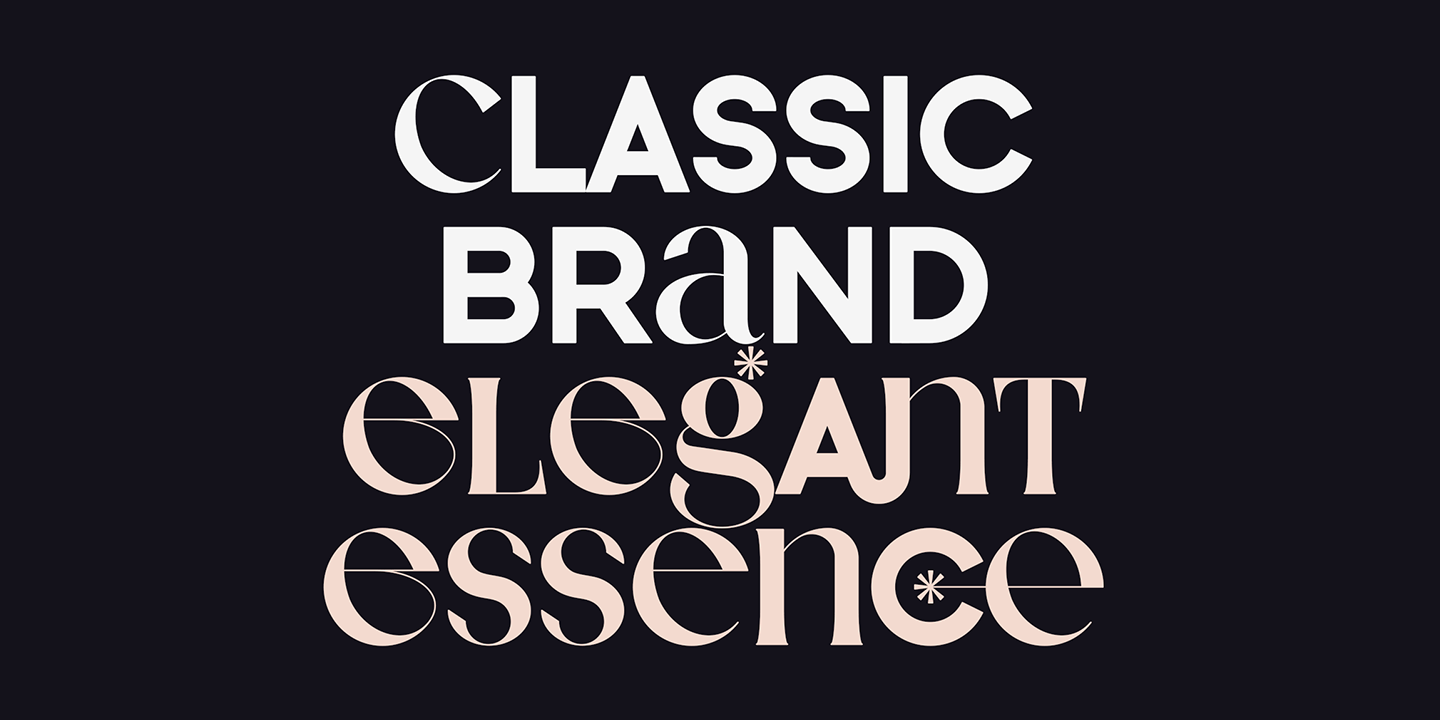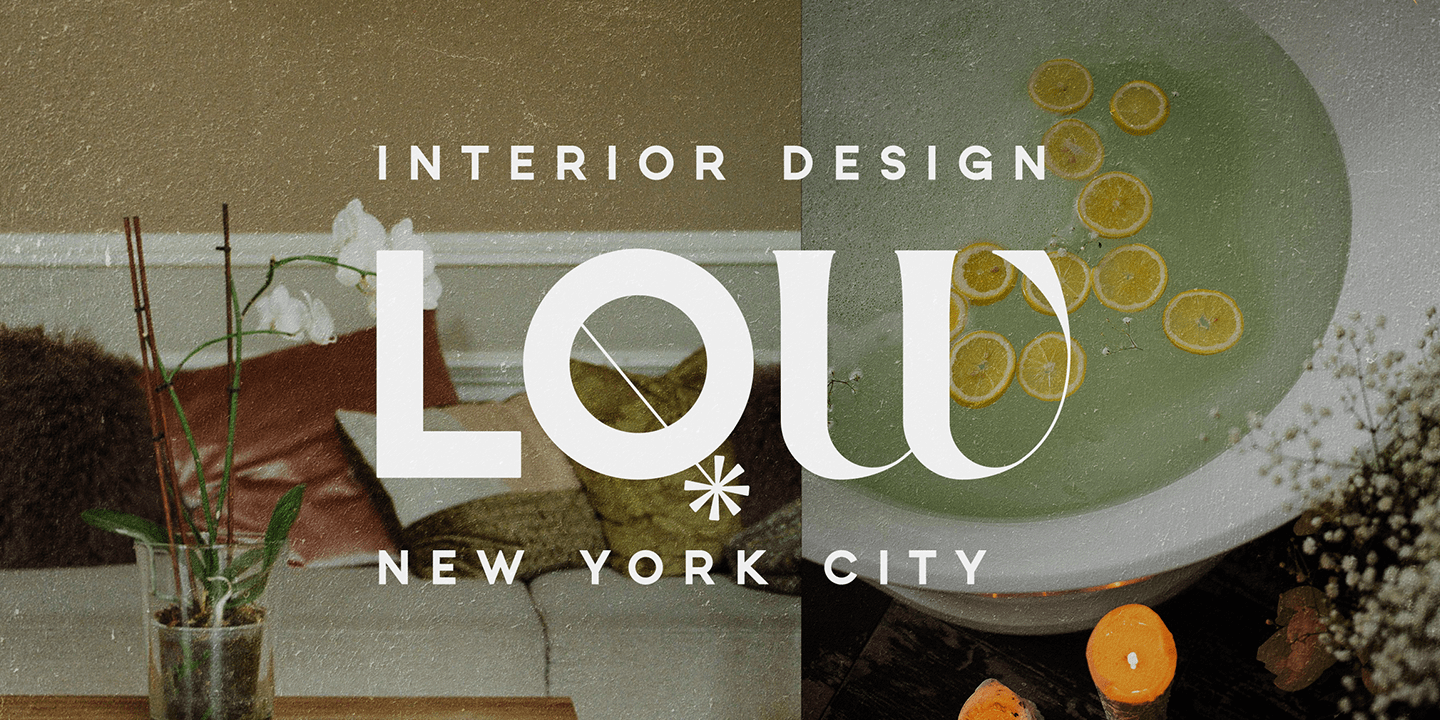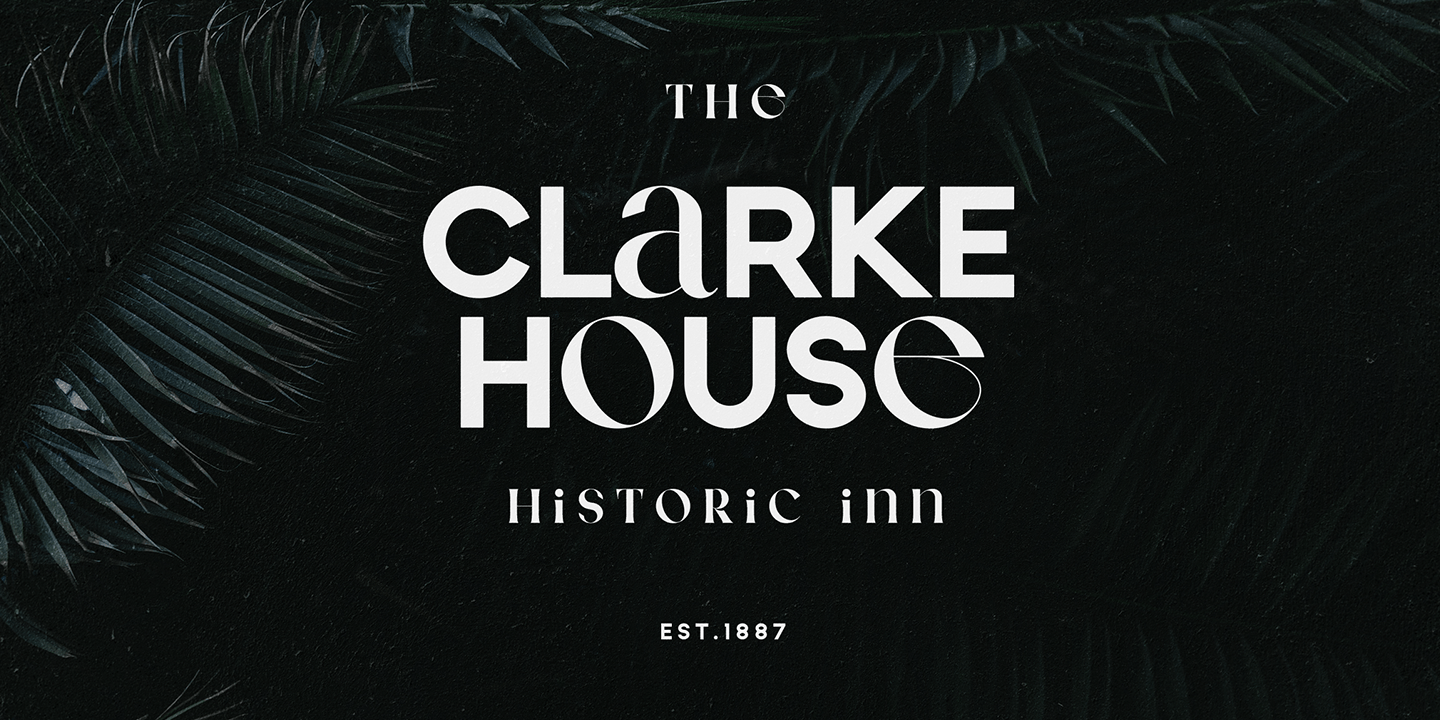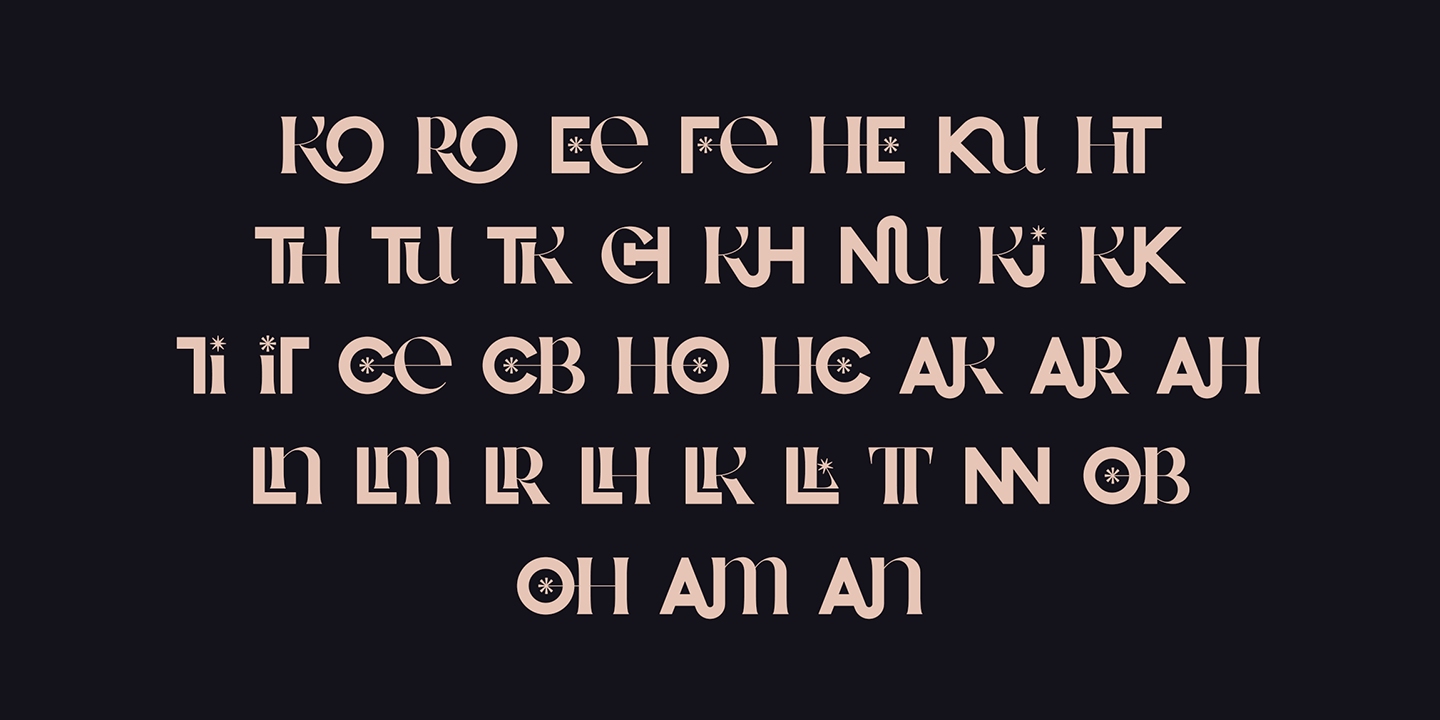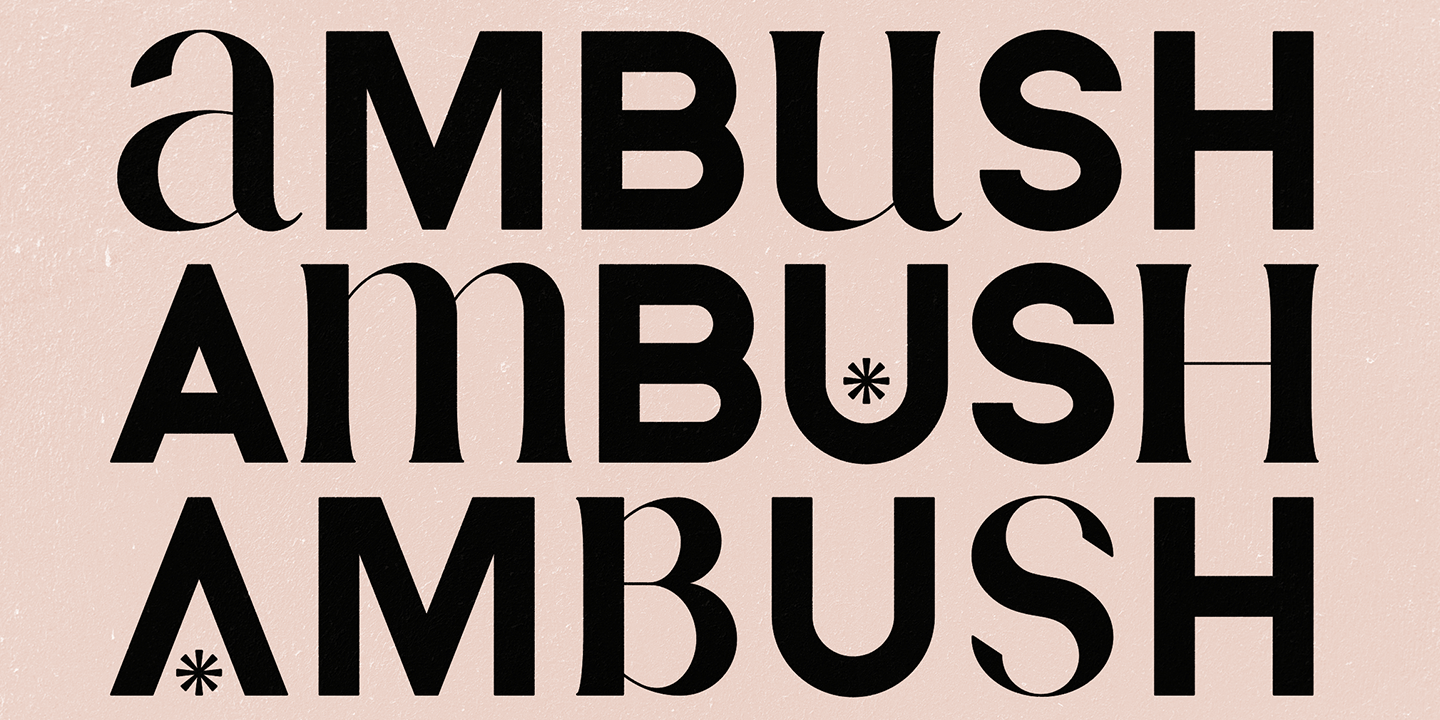
Neat Type Regular
About Neat Type Regular
ntroducing Neat Type, a sophisticated and innovative font that seamlessly blends the elegance of serif with the modernity of sans serif. Designed with versatility in mind, this unique typeface features uppercase characters in sleek sans serif, while…